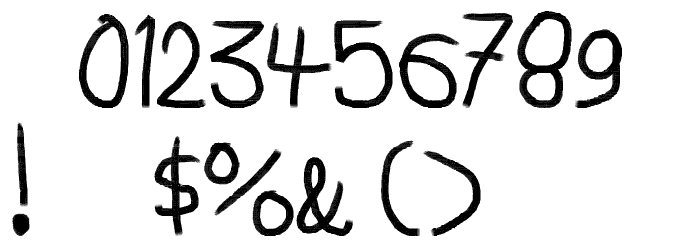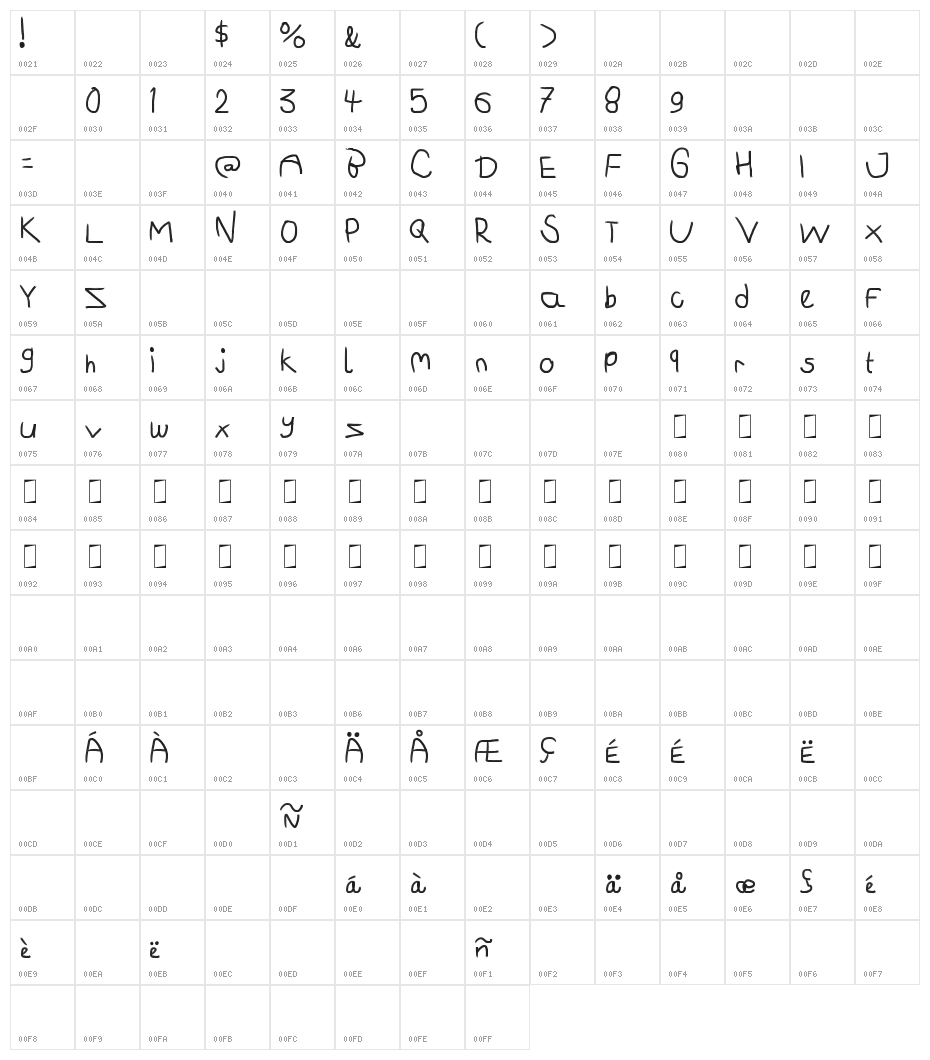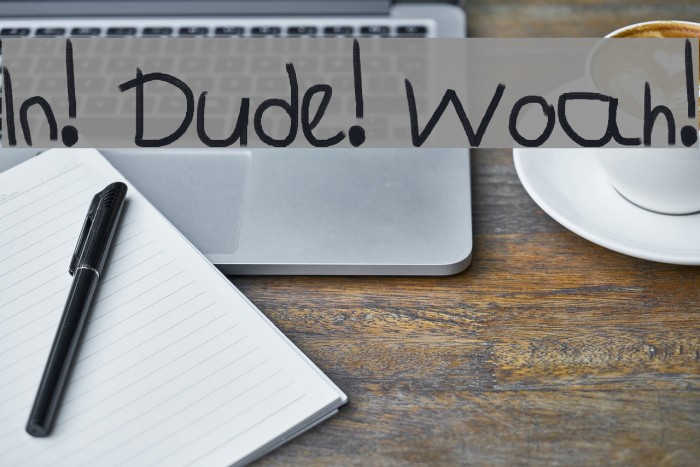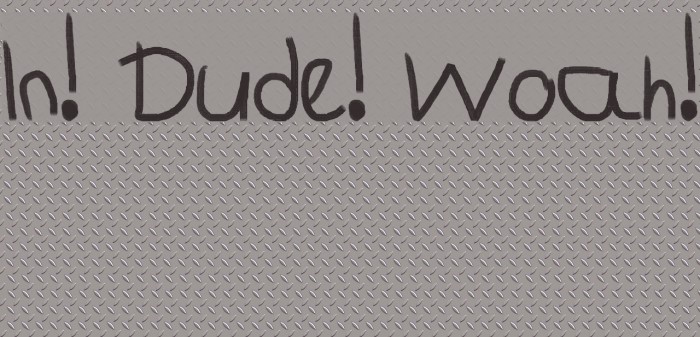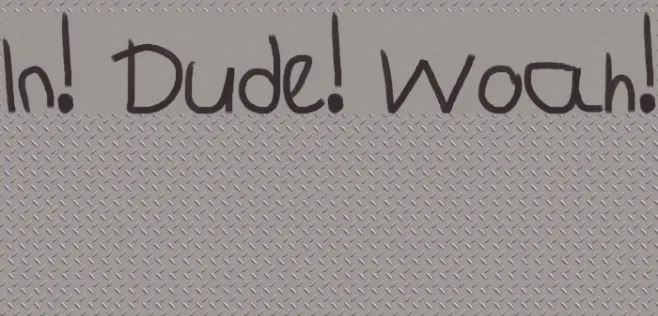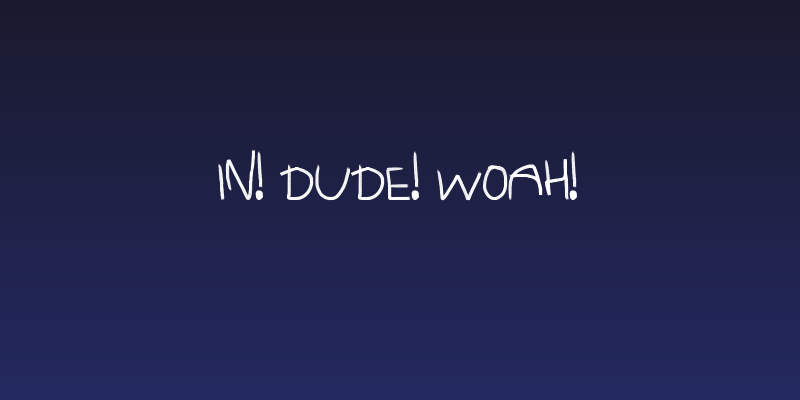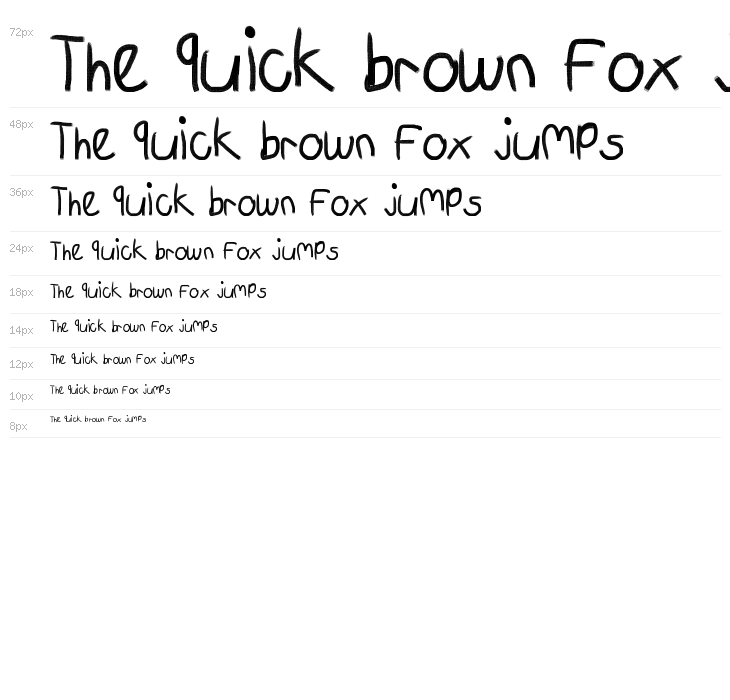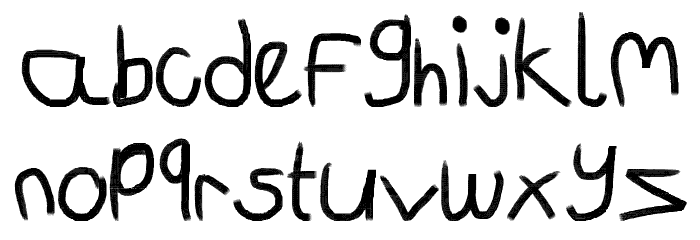
In! Dude! Woah! Font
In! Dude! Woah! Description
This font features a playful and casual handwritten style, characterized by its uneven strokes and slightly irregular letterforms. The uppercase letters are bold and prominent, while the lowercase letters maintain a consistent flow with a touch of whimsy. The numbers are rounded and easy to read, complementing the overall informal aesthetic. Special characters are creatively designed, adding to the font's unique personality. The font's organic and friendly appearance makes it suitable for projects that require a personal touch.
| Proposed Projects | Ideal for greeting cards, children's books, casual branding, and social media graphics. |